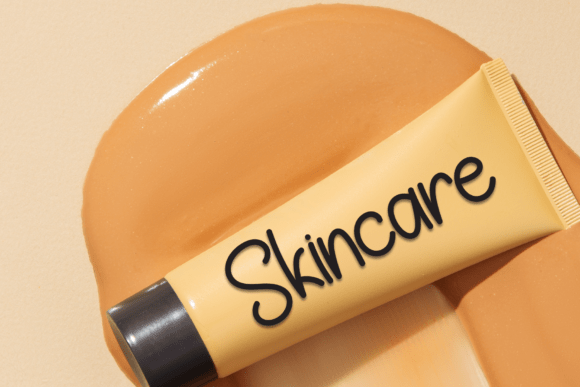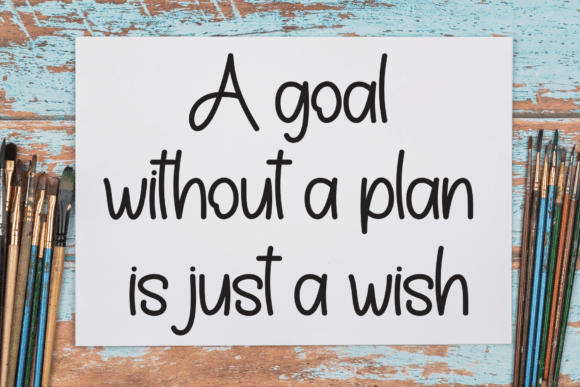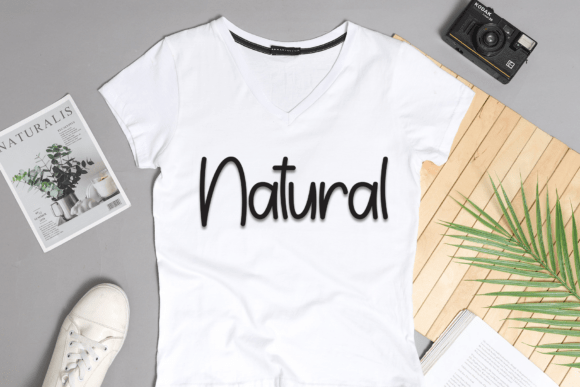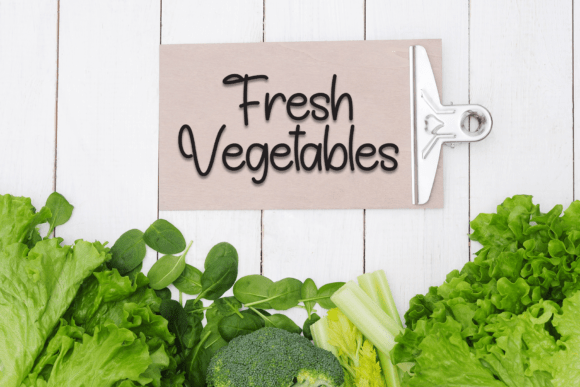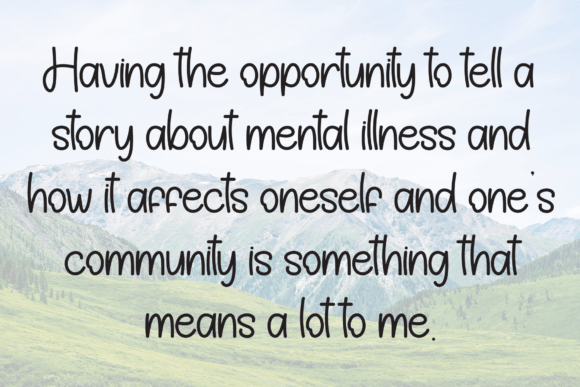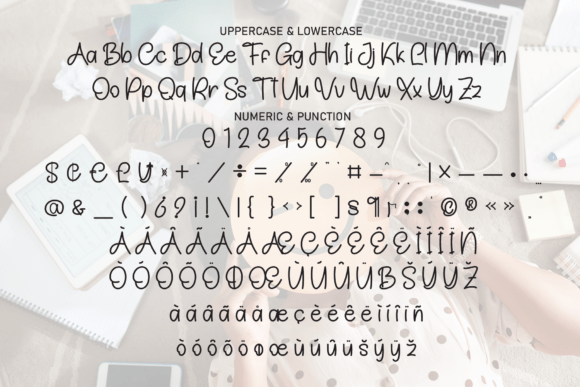
Introducing Good Mood Font: The Perfect Addition to Your Design Arsenal
Are you tired of using the same old fonts in your designs? Do you want to add a touch of personality and playfulness to your projects? Look no further than Good Mood Font, a cheerful and casual handwritten font that’s sure to elevate your designs to the next level.
What is Good Mood Font?
Good Mood Font is a beautifully crafted handwritten font that’s designed to bring a smile to your face. With its tall, rounded characters and a touch of personality, this font is perfect for adding a playful yet clean vibe to your designs. Whether you’re a designer, crafter, or simply someone who loves to create, Good Mood Font is the ideal choice for anyone looking to add a bit of whimsy to their projects.
Characteristics of Good Mood Font
So, what makes Good Mood Font so special? Here are just a few of its key characteristics:
- Tall and rounded characters: Good Mood Font features tall, rounded characters that give it a friendly and approachable feel.
- Cheerful and casual vibe: This font has a distinctly cheerful and casual vibe that’s perfect for designs that need to feel fun and upbeat.
- Playful yet clean: Good Mood Font strikes the perfect balance between playfulness and cleanliness, making it suitable for a wide range of design applications.
- Personality-packed: This font has a certain je ne sais quoi that sets it apart from more generic fonts. It’s perfect for designers who want to add a bit of personality to their work.
Use Cases for Good Mood Font
So, what can you use Good Mood Font for? The possibilities are endless, but here are a few ideas to get you started:
- Journaling: Good Mood Font is perfect for journaling and scrapbooking. Its playful yet clean vibe makes it ideal for adding a personal touch to your journal pages.
- Planner stickers: Add a bit of whimsy to your planner stickers with Good Mood Font. Its tall, rounded characters are perfect for creating fun and eye-catching stickers.
- Social media graphics: Good Mood Font is a great choice for social media graphics, particularly for brands that want to convey a fun and playful vibe.
- Feel-good branding: If you’re looking to create a brand that feels friendly, approachable, and fun, Good Mood Font is the perfect choice.
Why Designers and Crafters Love Good Mood Font
So, why do designers and crafters love Good Mood Font? Here are just a few reasons:
- Easy to read: Despite its playful vibe, Good Mood Font is surprisingly easy to read, even at small sizes.
- Versatile: This font is suitable for a wide range of design applications, from digital projects to print materials.
- Unique: Good Mood Font has a certain uniqueness that sets it apart from more generic fonts. It’s perfect for designers who want to stand out from the crowd.
- Fun to use: Let’s face it: Good Mood Font is just plain fun to use! Its playful vibe is sure to bring a smile to your face as you work.
In conclusion, Good Mood Font is a fantastic addition to any designer’s or crafter’s arsenal. Its cheerful and casual vibe, combined with its playful yet clean characteristics, make it perfect for a wide range of design applications. Whether you’re looking to add a bit of whimsy to your journaling, create fun and eye-catching planner stickers, or develop a feel-good brand, Good Mood Font is the ideal choice. So why not give it a try and see the difference it can make in your designs?